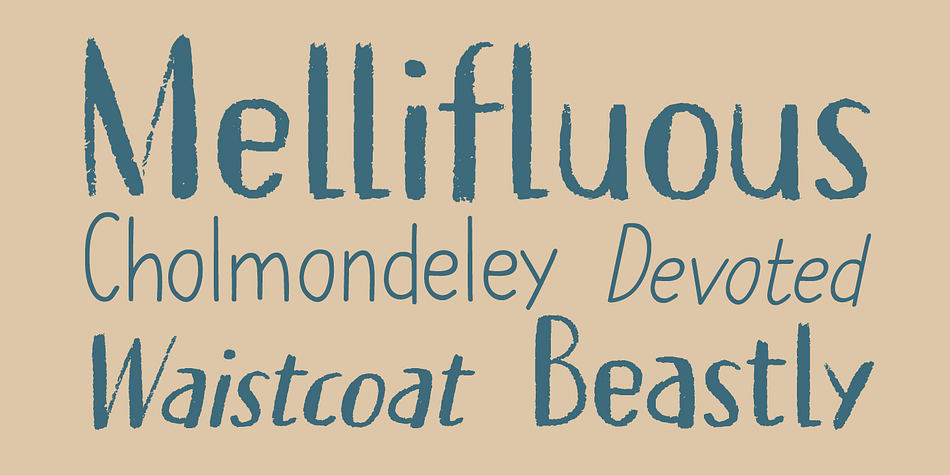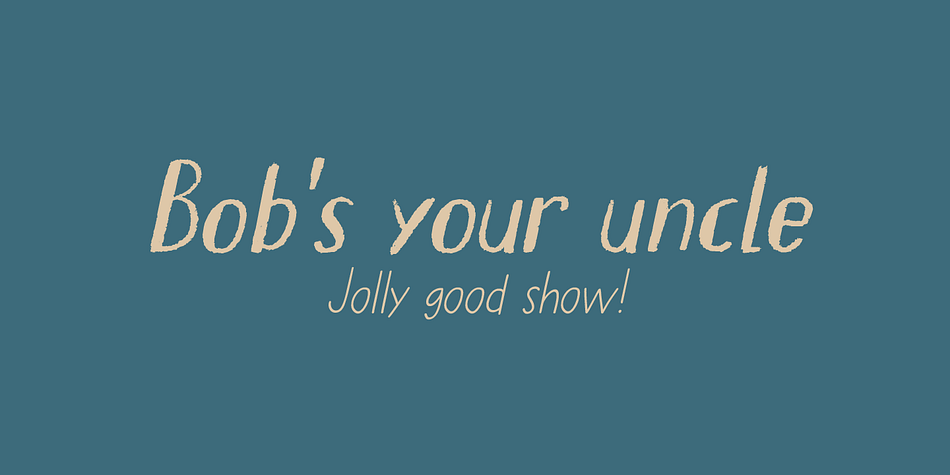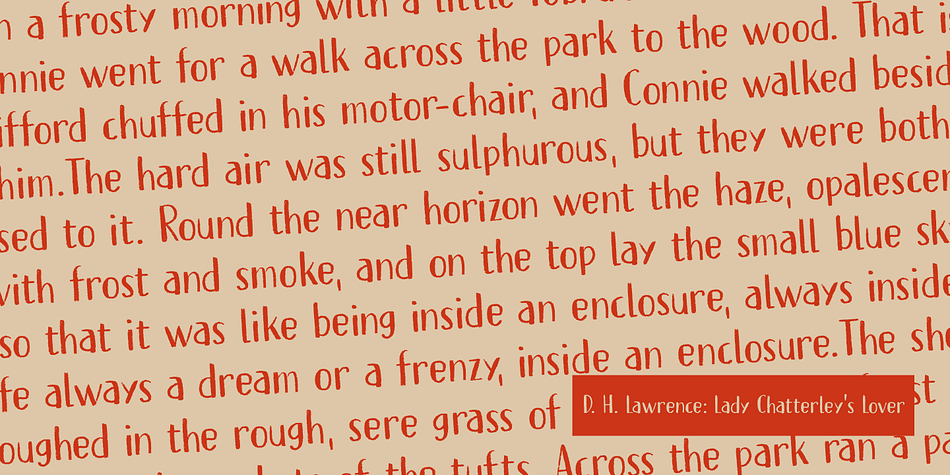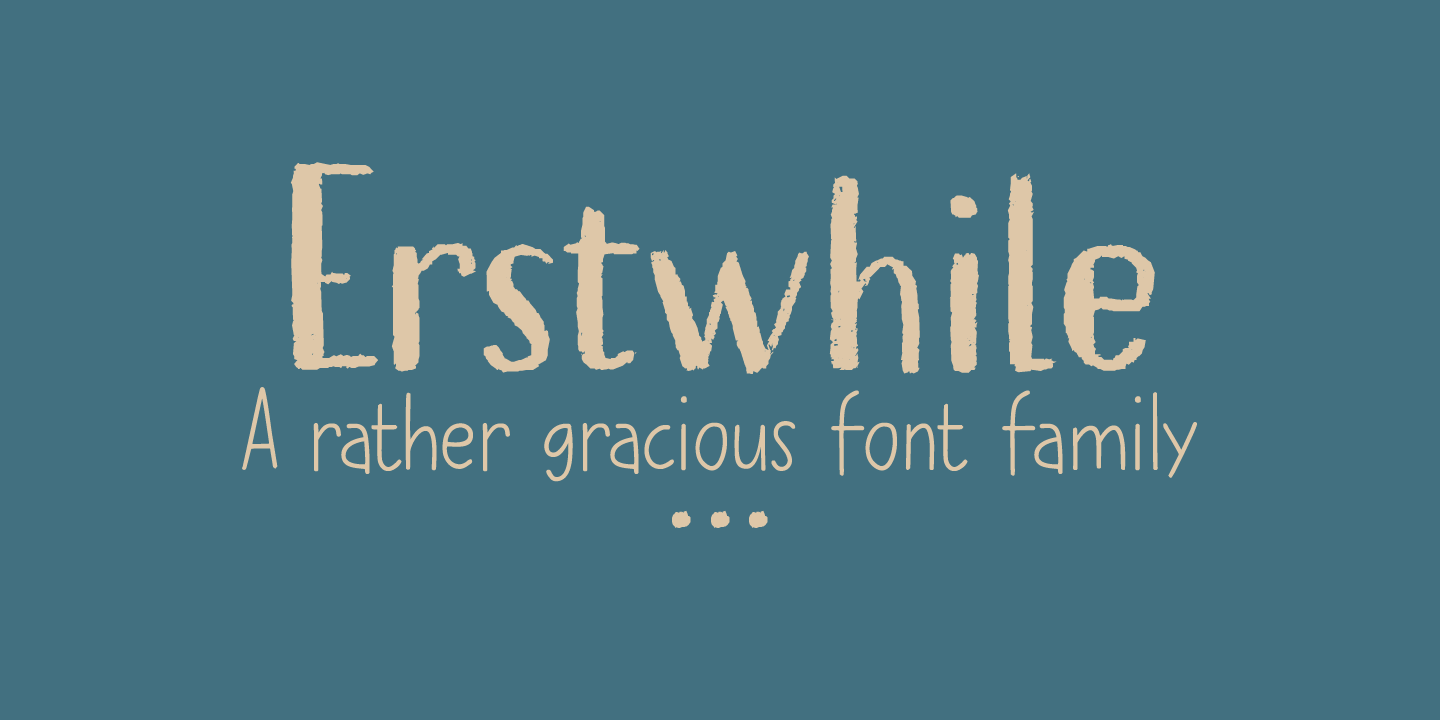
Designed by David Kerkhoff, Erstwhile is a hand display, hand drawn and sans serif font family. This typeface has four styles and was published by Hanoded.
I like posh English words - the ones you read in books, but actually never use. Erstwhile is such a word; it means ‘former’, but if you use it while talking to someone, it sounds quite odd.
Erstwhile is a classy font family - crafted in Holland (with love!).